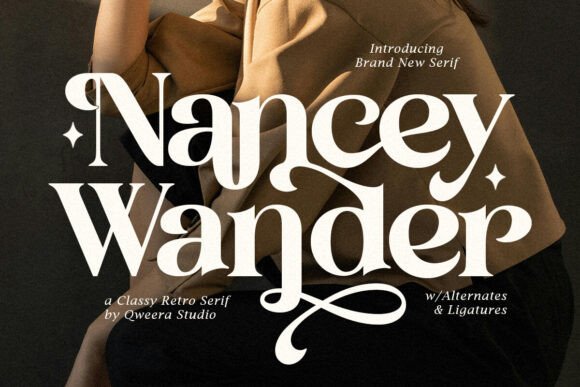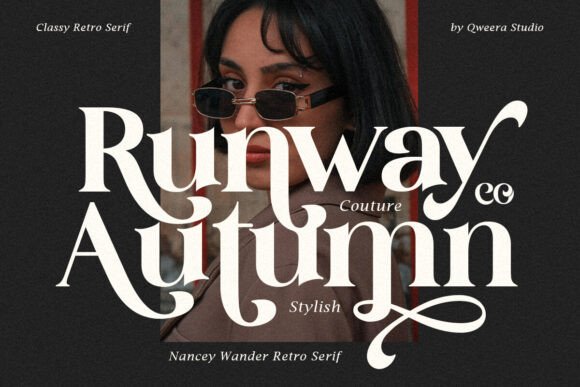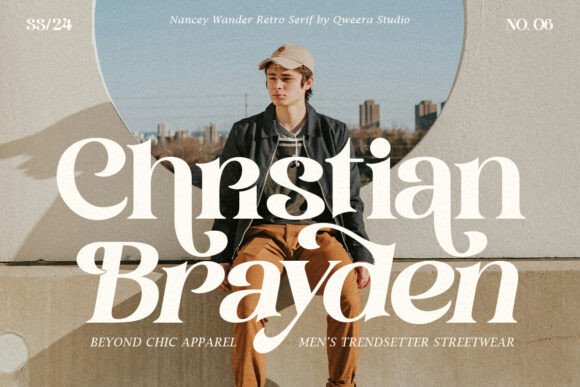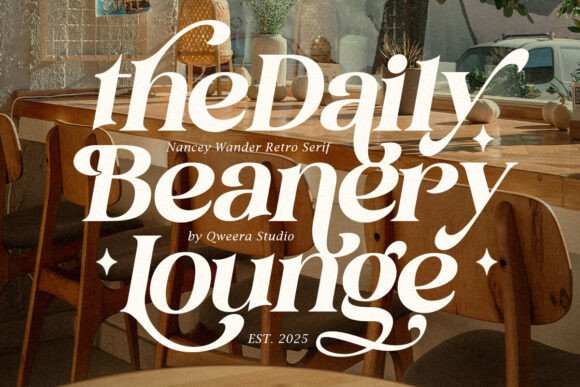
Nancey Wander Font
About the Nancey Wander Font
Welcome to the world of Nancey Wander Font, a typeface that will inspire your next great project. Nancey Wander – Classy Serif Font for Elegant and Sophisticated Designs
Nancey Wander is more than just a font—it’s a harmonious blend of bold and thin character transitions, designed to bring elegance and sophistication to your creative projects. Available in both regular and italic styles, this font features stylish alternates and ligatures, offering ultimate flexibility to create designs tailored to your vision effortlessly. Whether you’re working on posters, magazines, or print designs, Nancey Wander ensures your projects stand out with timeless appeal and versatility.
Where Bold Meets Elegance
Nancey Wander stands out with its unique combination of bold and thin transitions, offering endless creative possibilities. Its versatility makes it ideal for projects that demand a sophisticated and elegant aesthetic, from editorial layouts to creative branding. This font isn’t just a tool—it’s a statement of creativity and refinement.
Elevate Your Designs with Nancey Wander
Nancey Wander isn’t just a font—it’s a tool to transform your creative projects into elegant, sophisticated masterpieces. Whether you’re designing for print, digital, or branding, this font ensures your work stands out with timeless style and creativity.
Nancey Wander Font Usage Examples
Nancey Wander Font Example